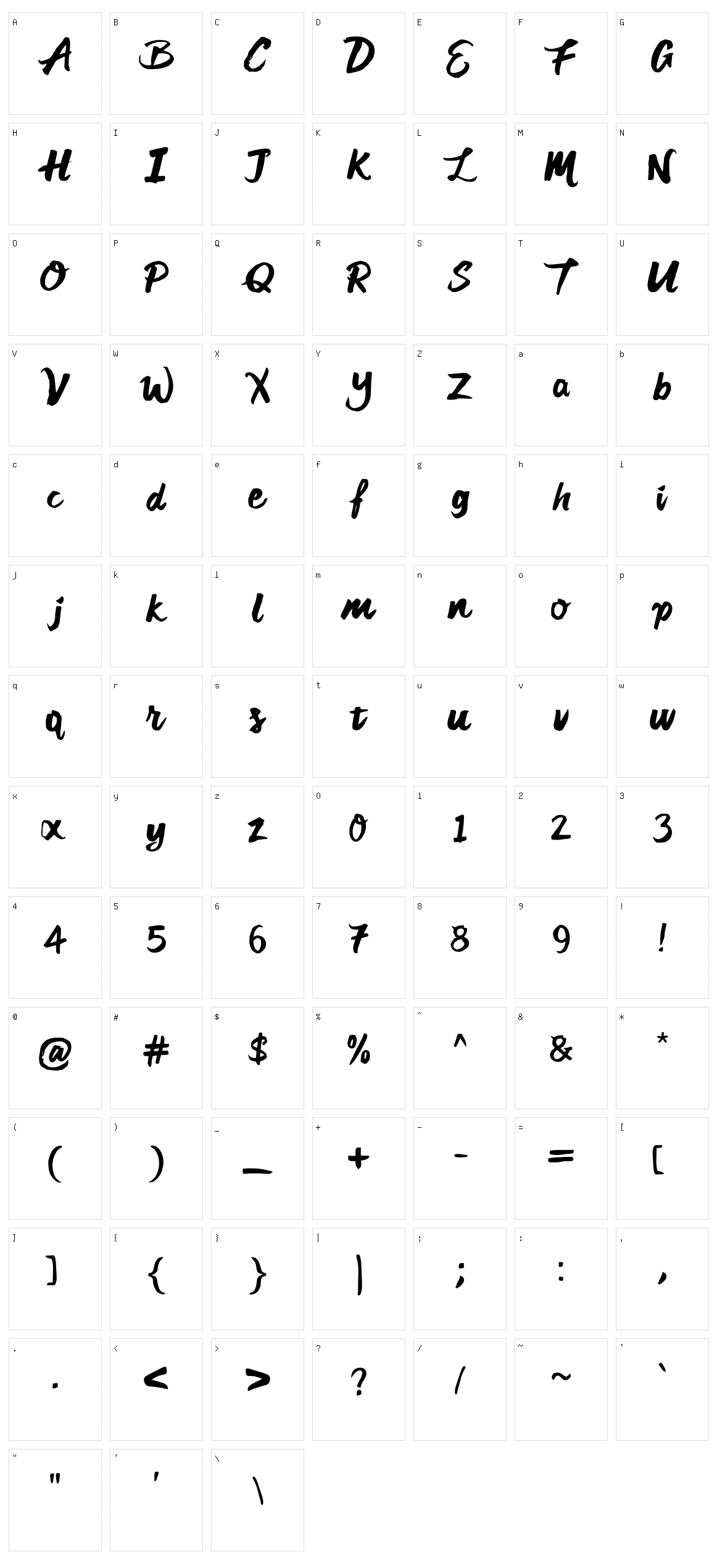
Patricia Ferrer-Dalmau (i) Font
by Lorenzo Ong (2016)
A feisty, spirited and beauteous font amalgamating the
brashness of Augusto Ferrer-Dalmau's brushes with
bucolic Catalonian elegance and allure. Taming the
futurism of Salvador Dali's paintings with Gaudi's
luxuriance and organic structural constructs.
Ultimately, the Patricia Ferrer-Dalmau (i)
Font is an eclectic mix of florid
form and functional cogency.
The first in its typeface, supporting over 12 languages.
Catalan, Danish, English, French, German,
Icelandic, Latvian, Lithuanian, Malay,
Norwegian, Spanish, Swedish.
Inspired by the works of Tzehern <paperth.co>,
RojasLeon, Claudio Gil & Pokras Lampas.